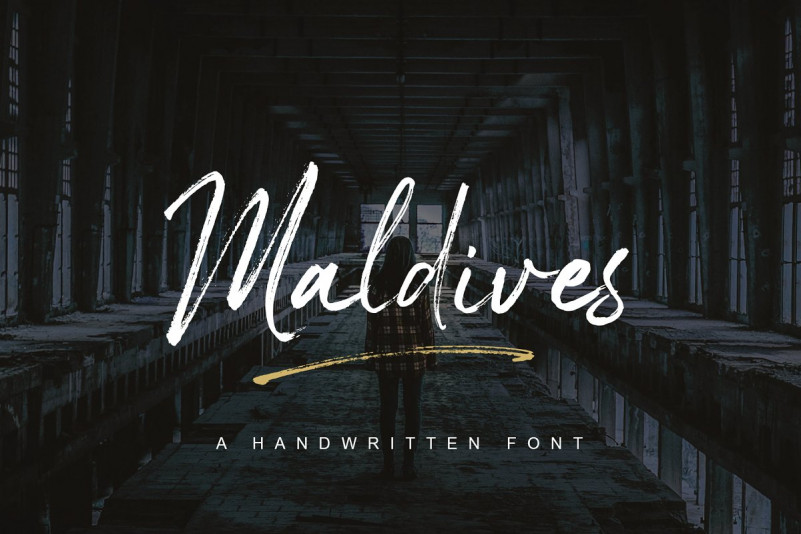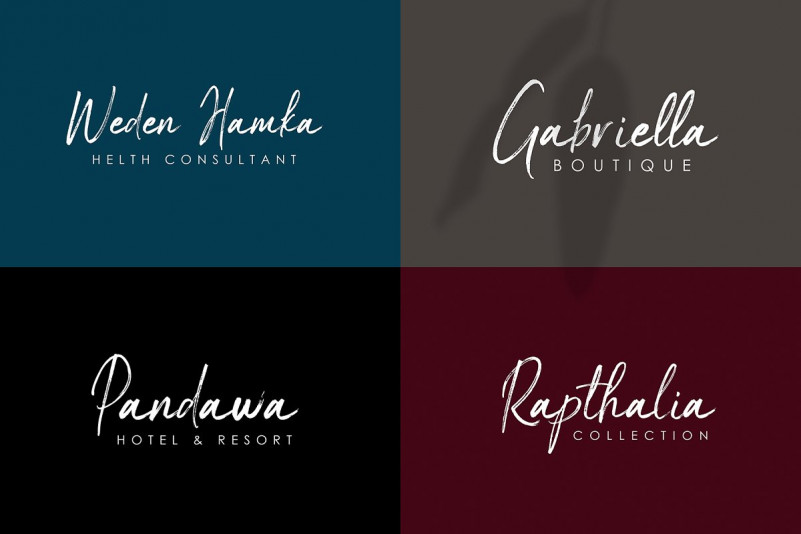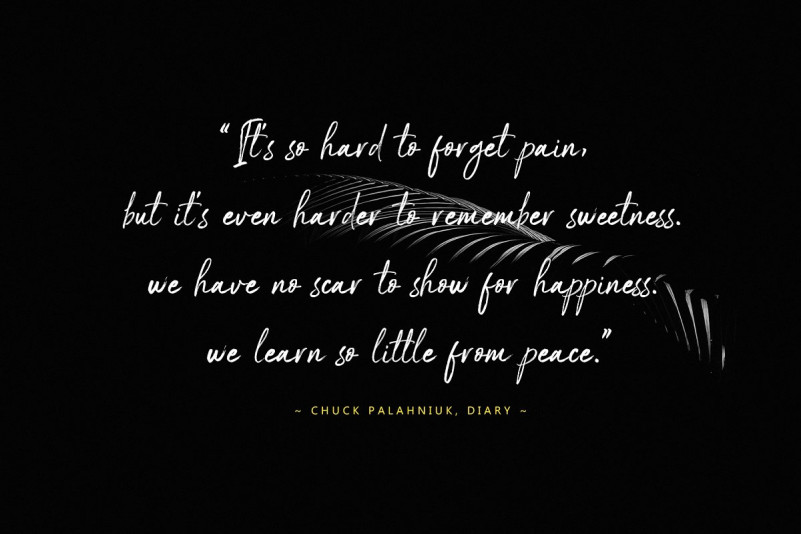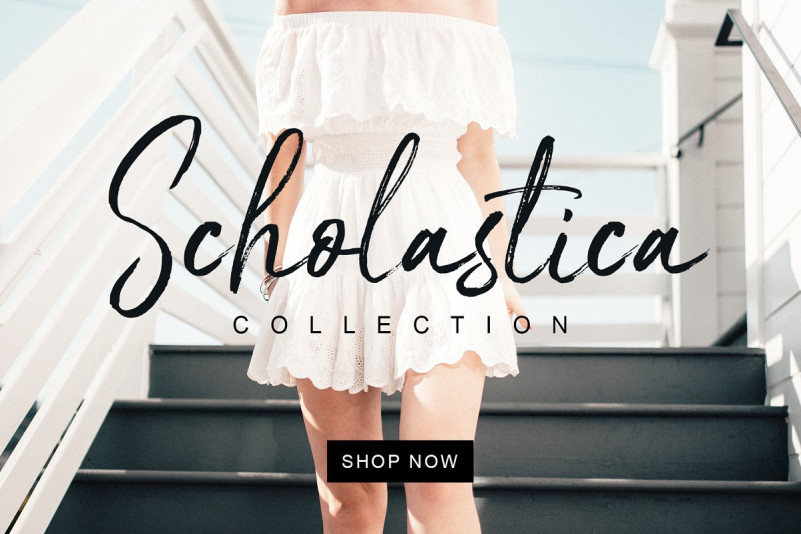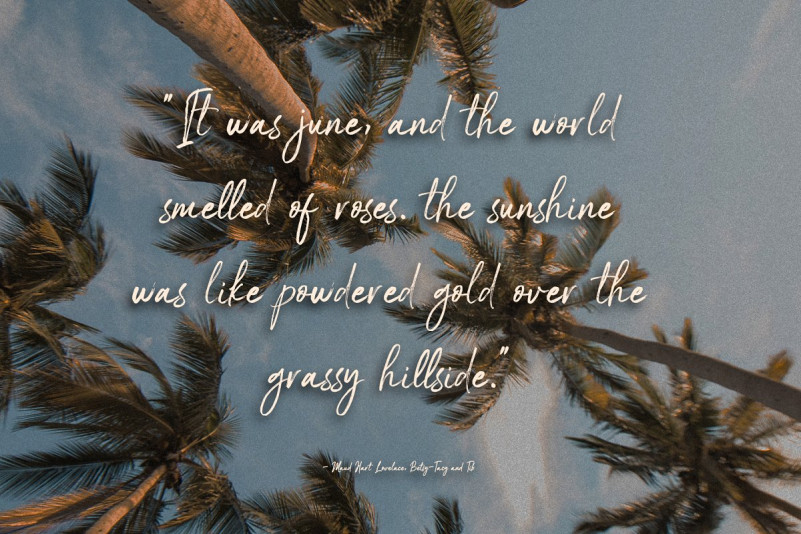
Maldives Brush – Free Demo
This is an exciting handwritten Script font with brush style. This beautiful script can make your text appear elegant, luxurious, and modern! designed and shared by MJB Letters. Introducing Maldives Font. It’s a handwritten script font, natural handwriting that will be very suitable for various needs Such as apparel, invitations, books tittle, stationery design, quotes, branding, logos, greeting cards, t-shirts, packaging designs, posters and more.